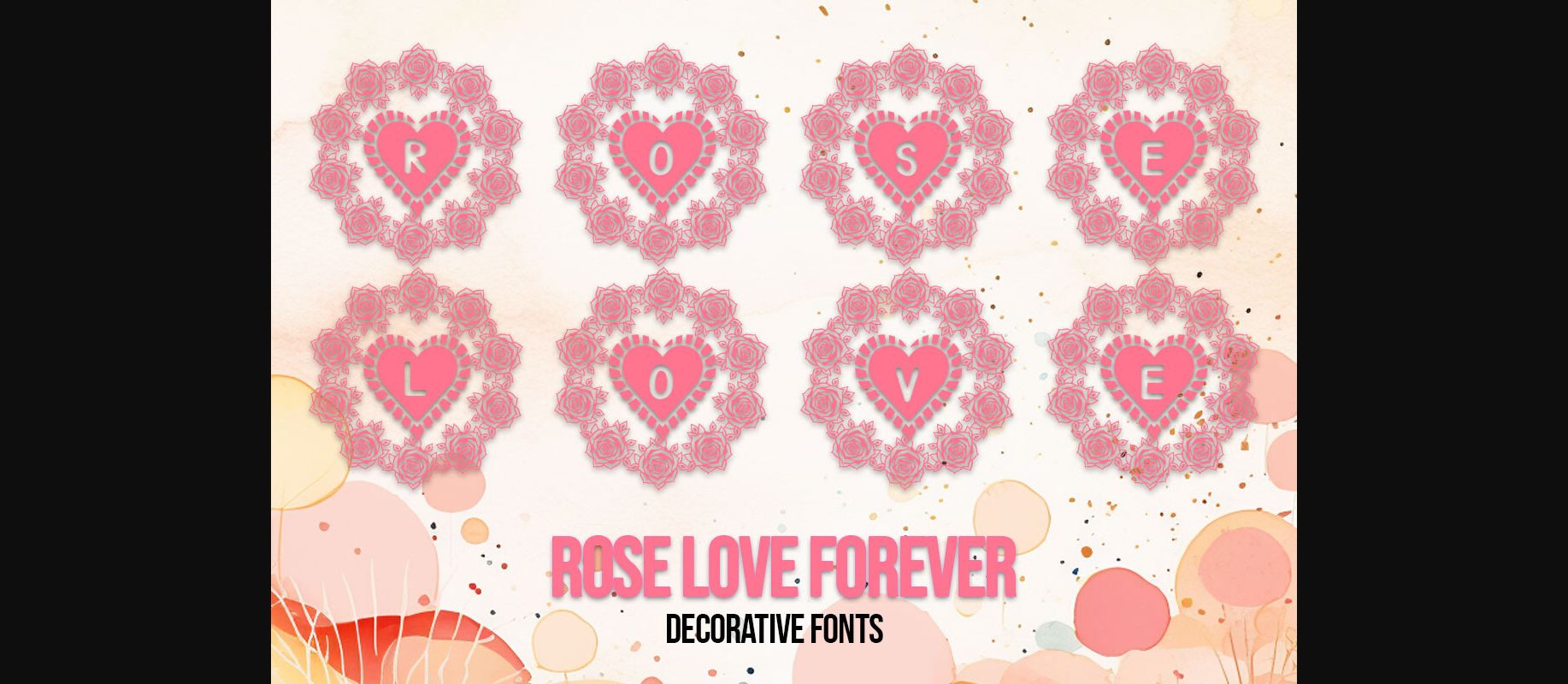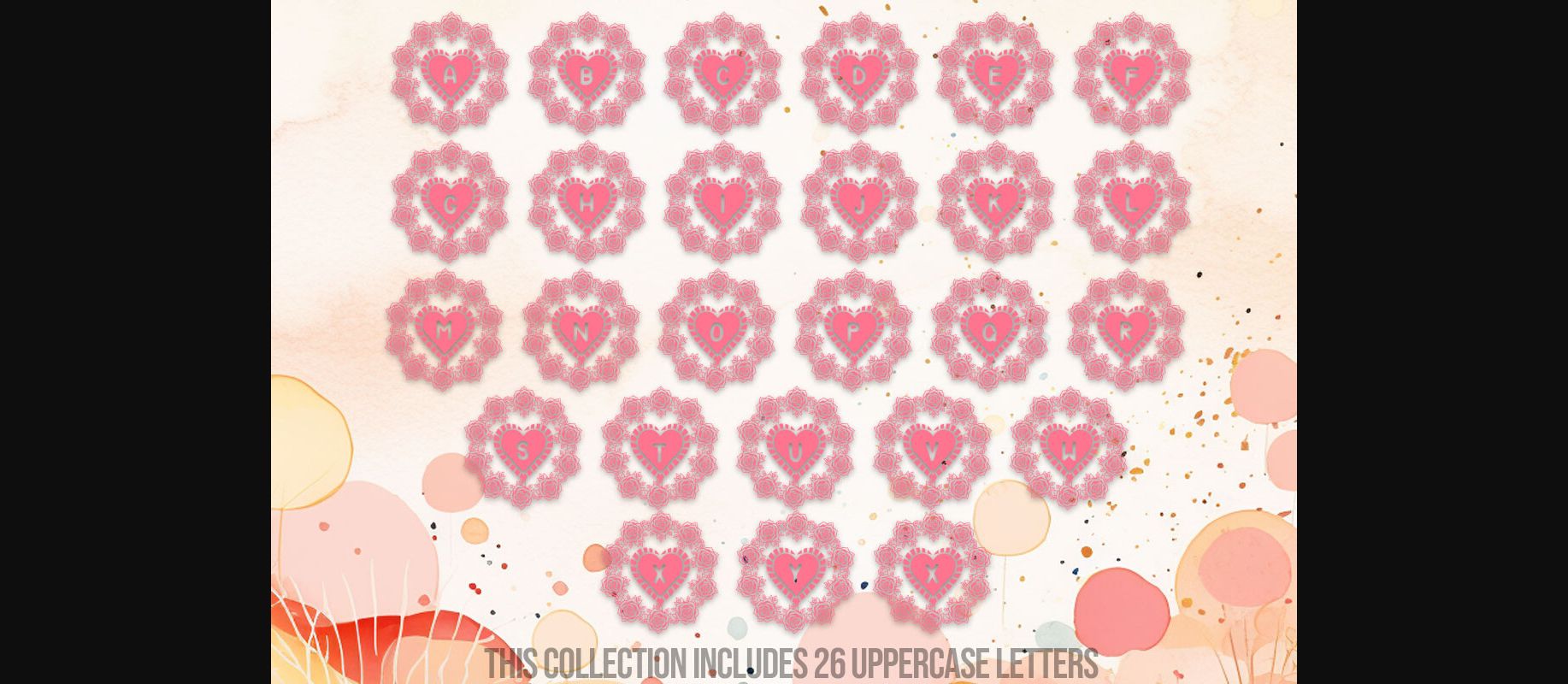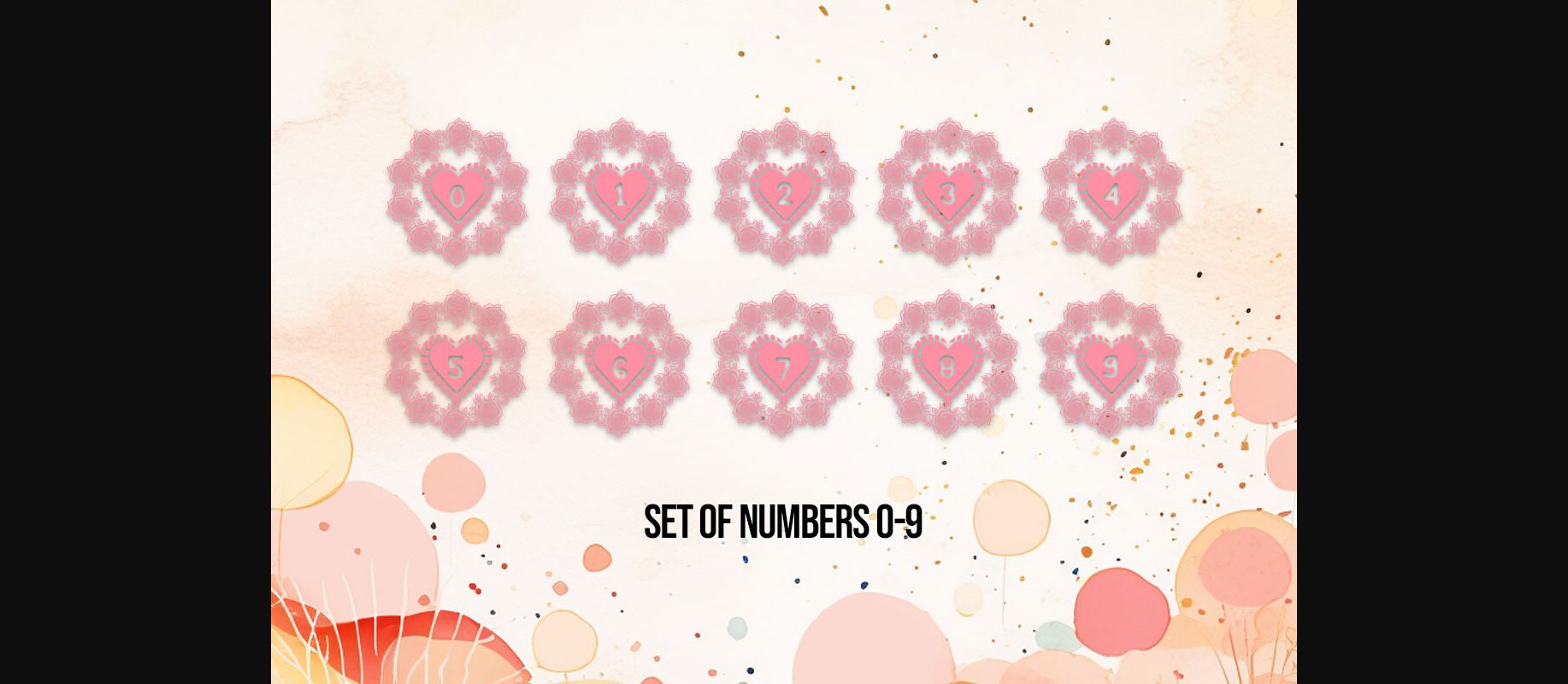
Rose Love Forever Font
About Rose Love Forever Font
Introducing our ‘Rose Love Forever Decorative Fonts’—a timeless collection comprising 36 meticulously crafted characters, including 26 uppercase , along with a set of numbers 0-9. Each character encapsulates the eternal essence of roses, symbolizing enduring love and beauty. Perfect for invitations, digital artwork, or expressing everlasting affection. Let these fonts be the embodiment of enduring love, allowing you to craft messages that resonate with timeless romance and everlasting devotion